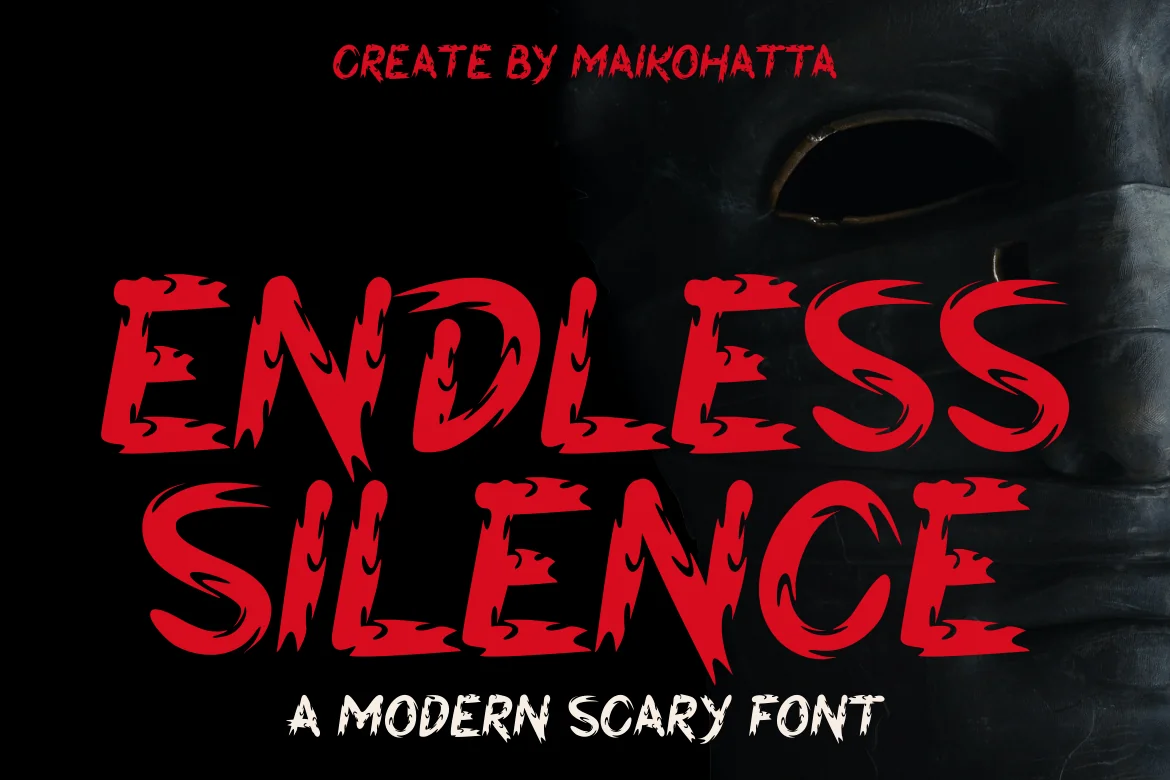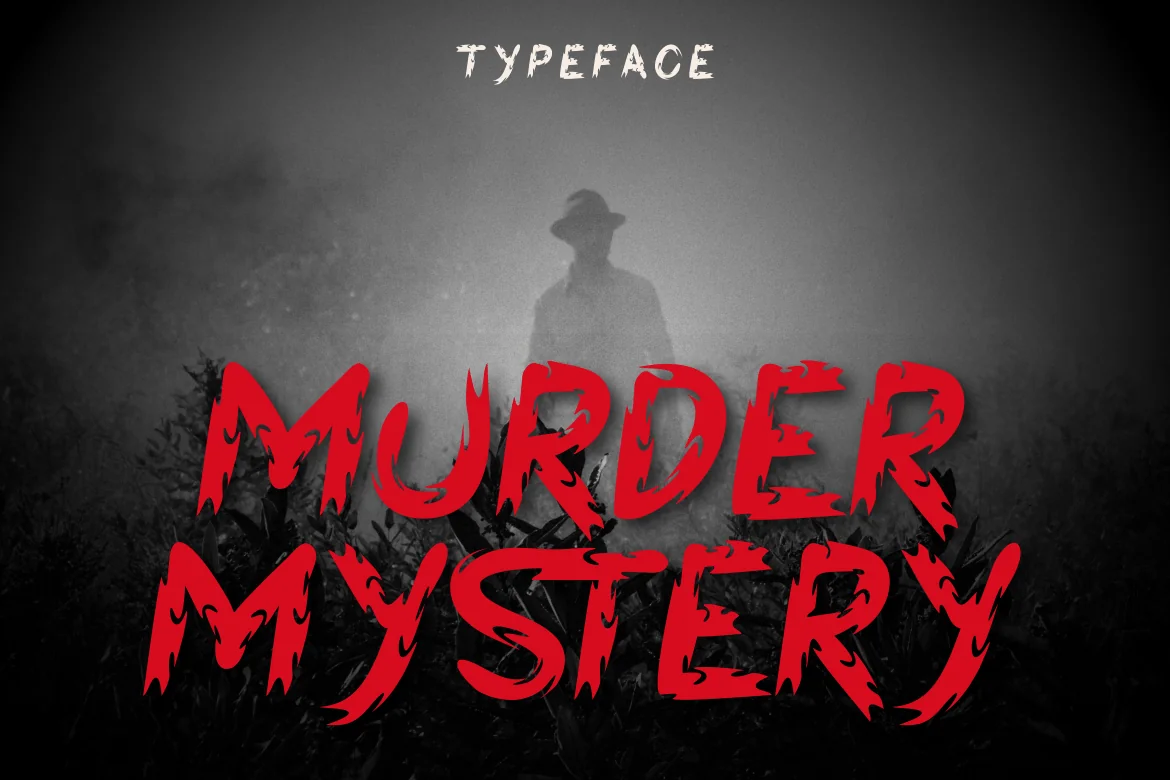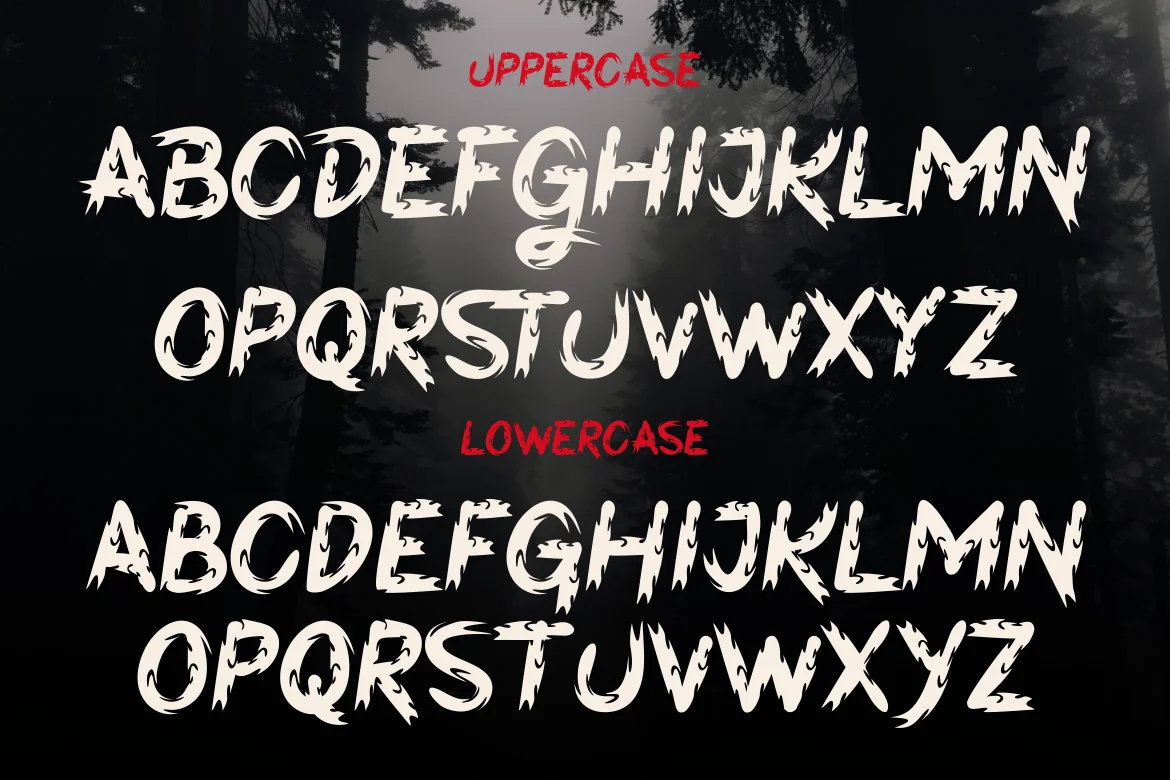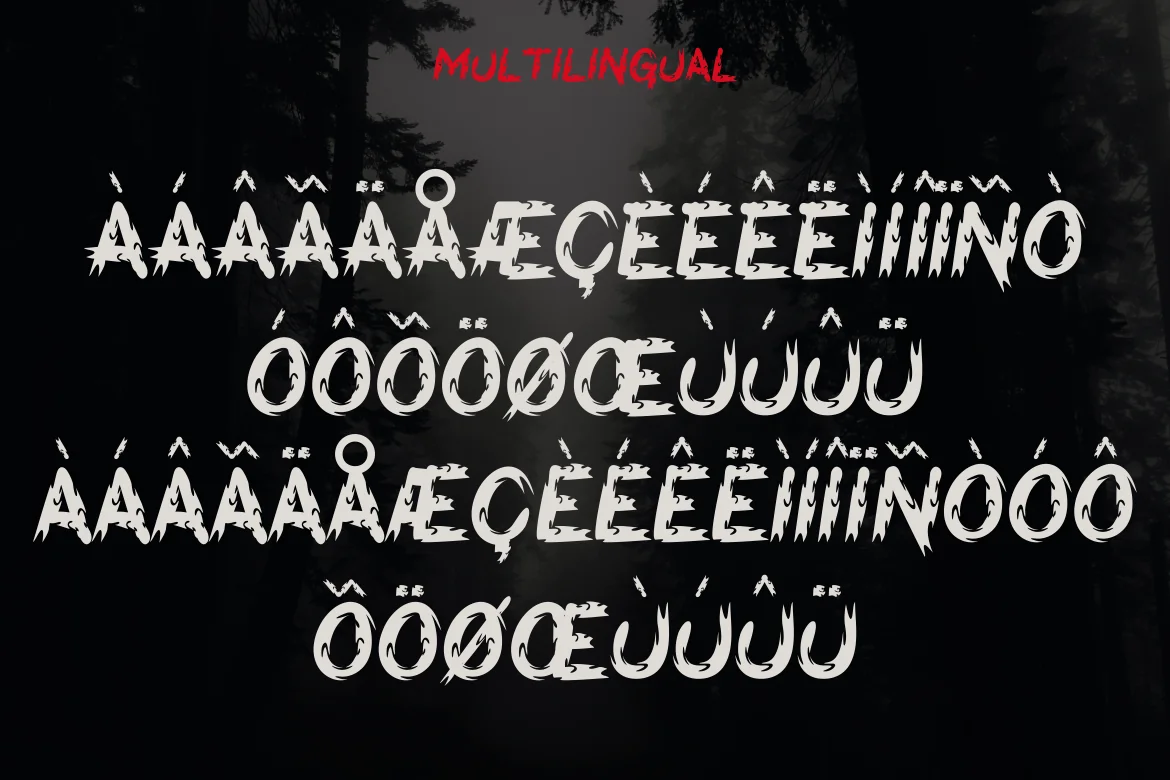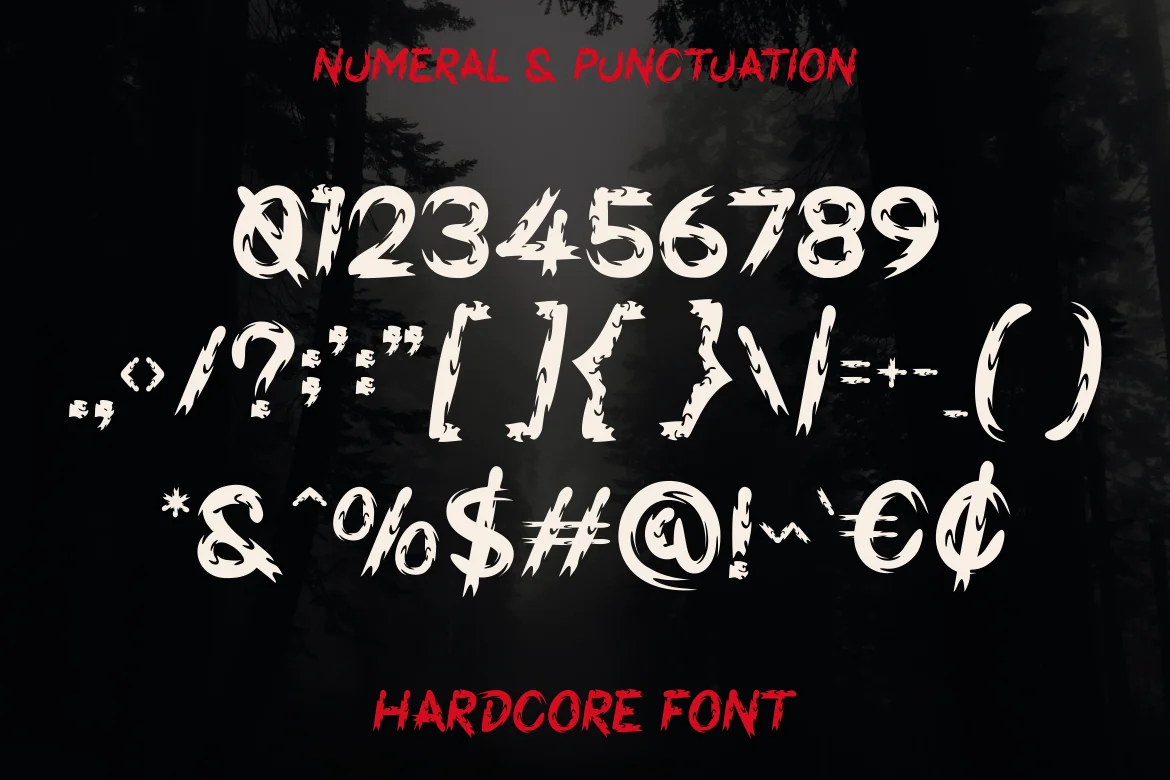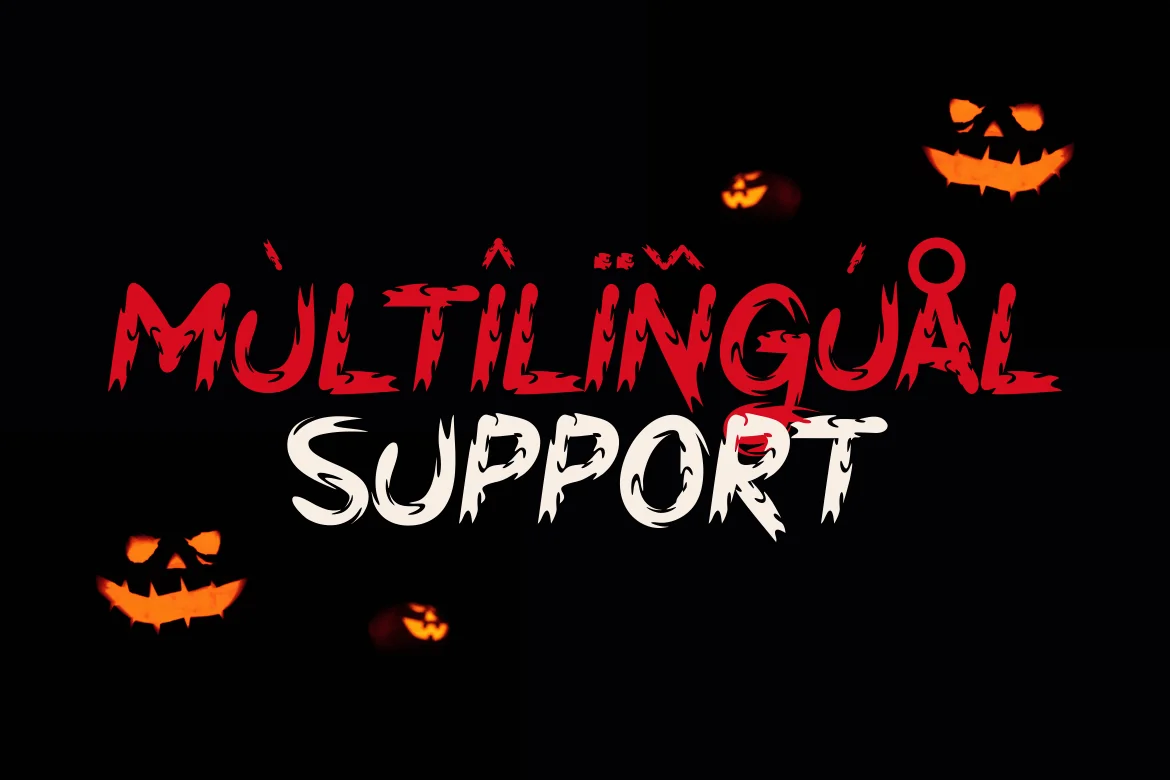
Endless Silence – Modern Scary Font
Introducing our new product Endless Silence – Modern Scary Font
Halloween Font is a type of font specifically designed to create a spooky, mysterious atmosphere and depict the spirit of Halloween celebrations. This font can be used in various Halloween-related media, such as party invitations, posters, merchandise designs, greeting cards, warning signs, or within website designs with Halloween themes.